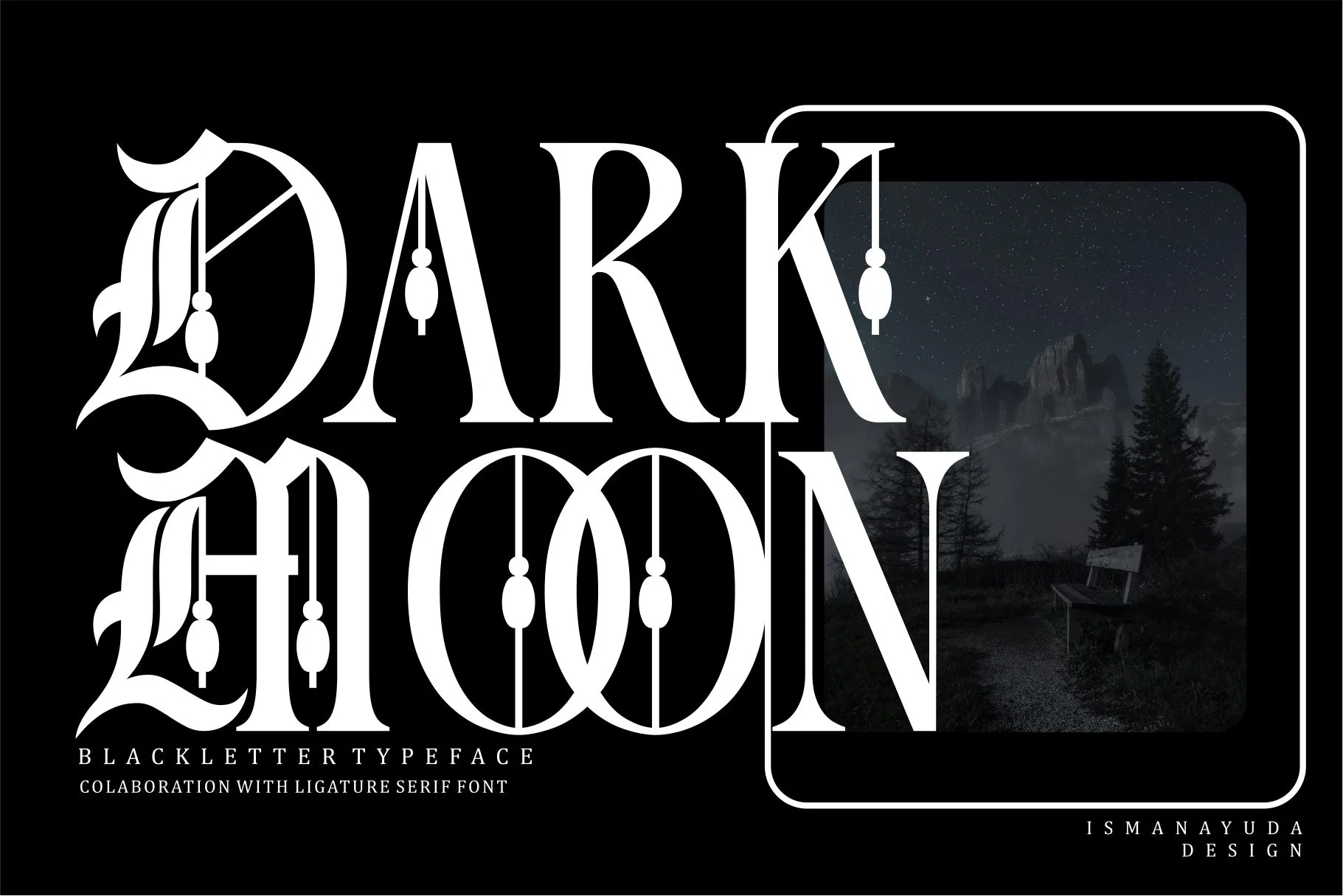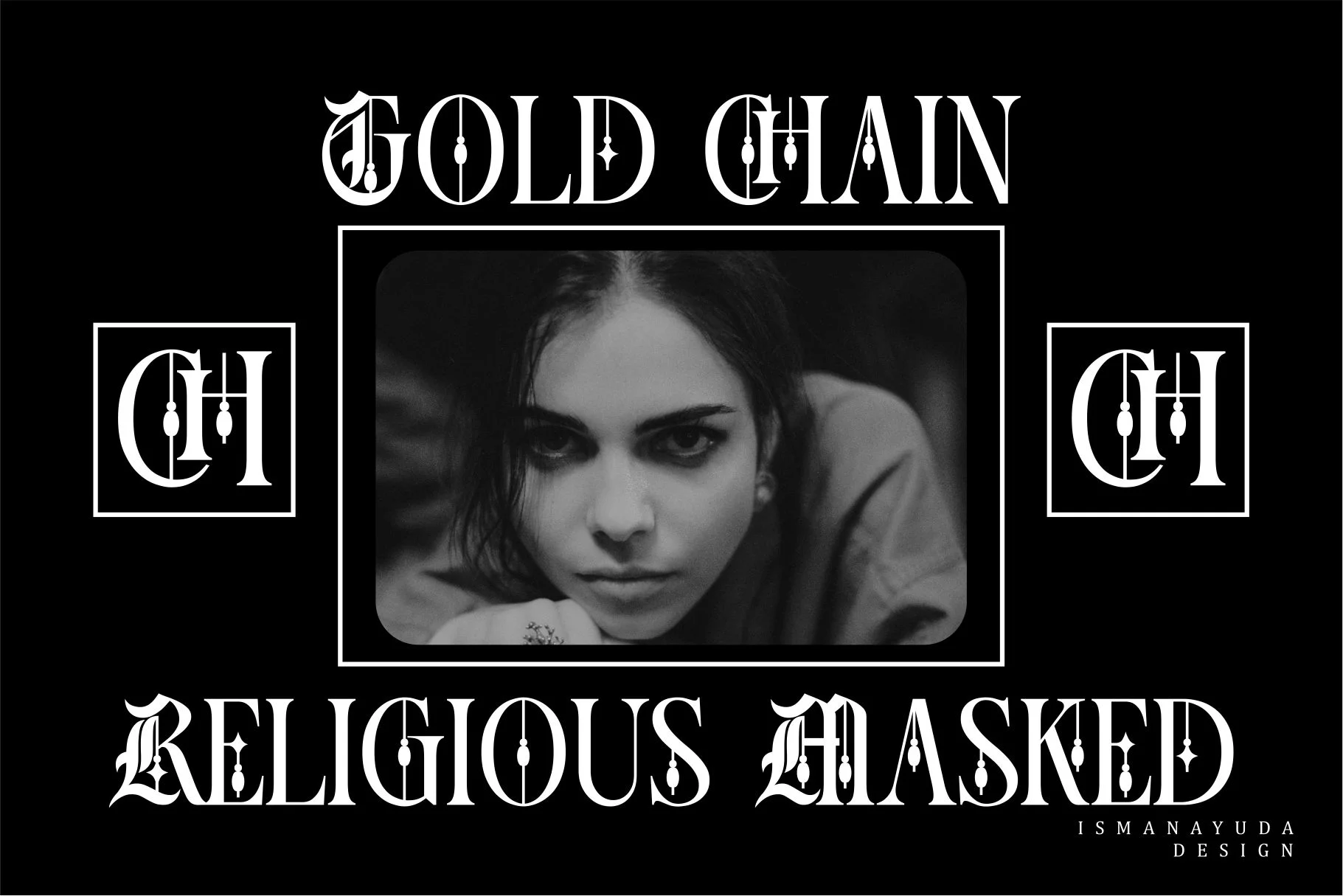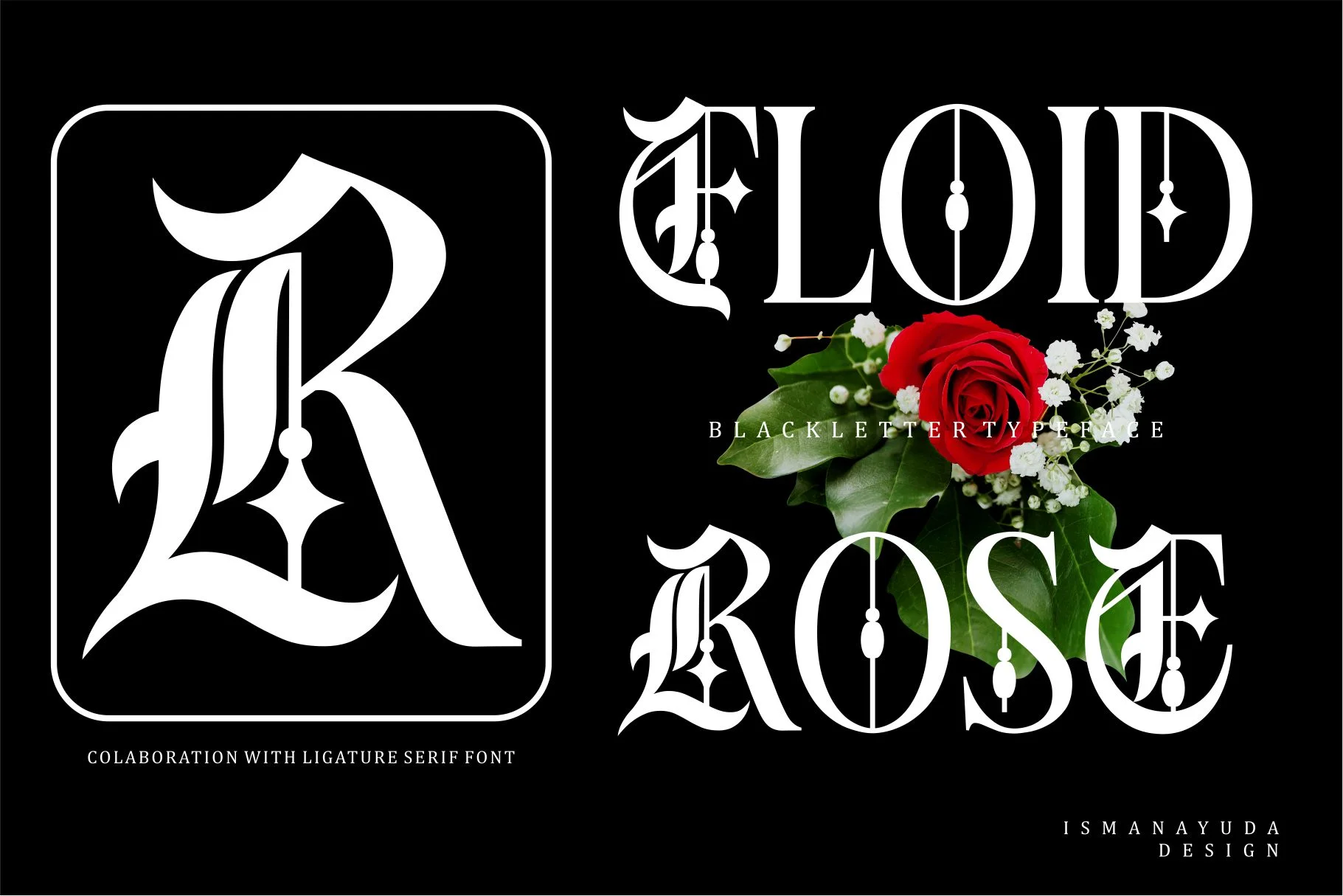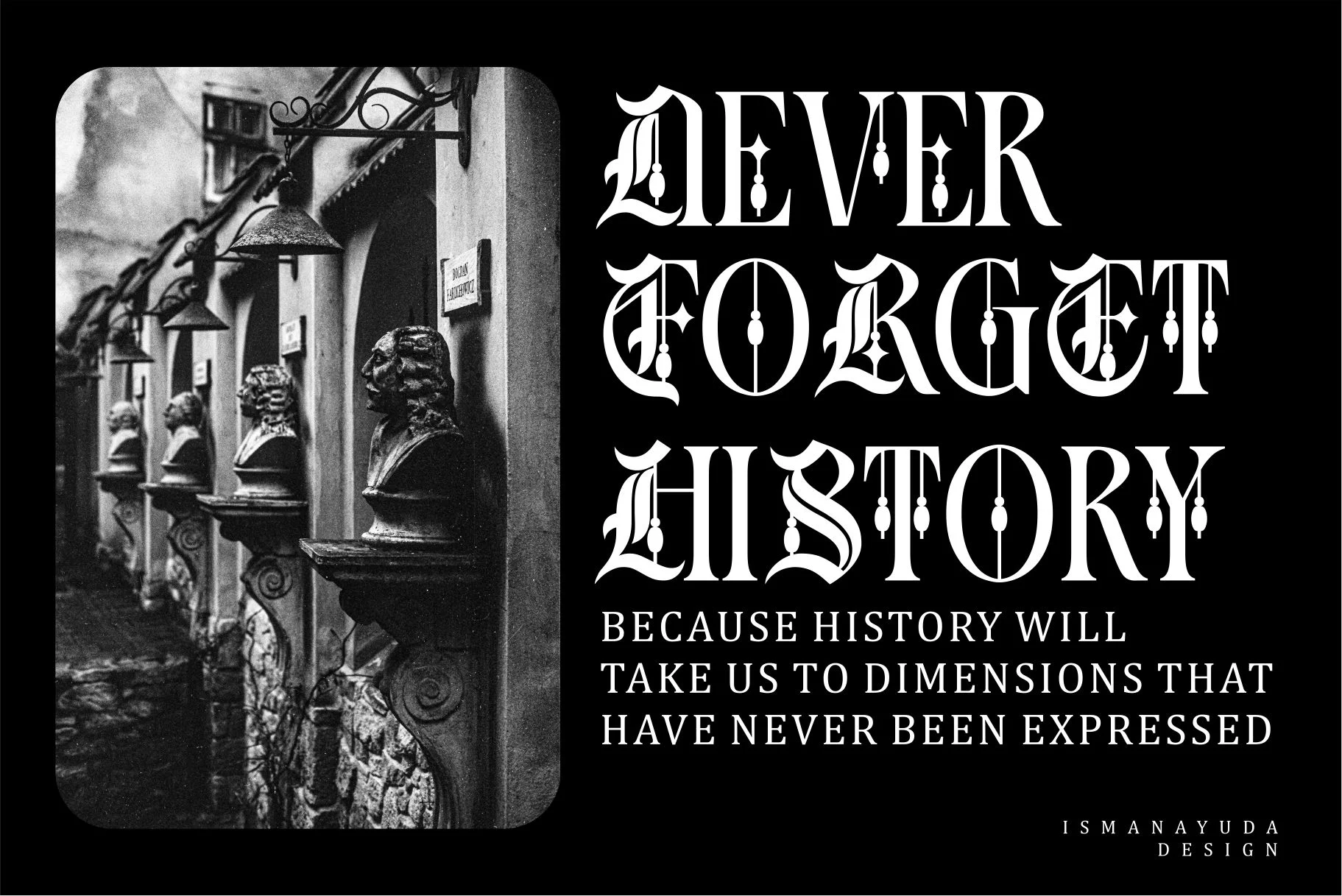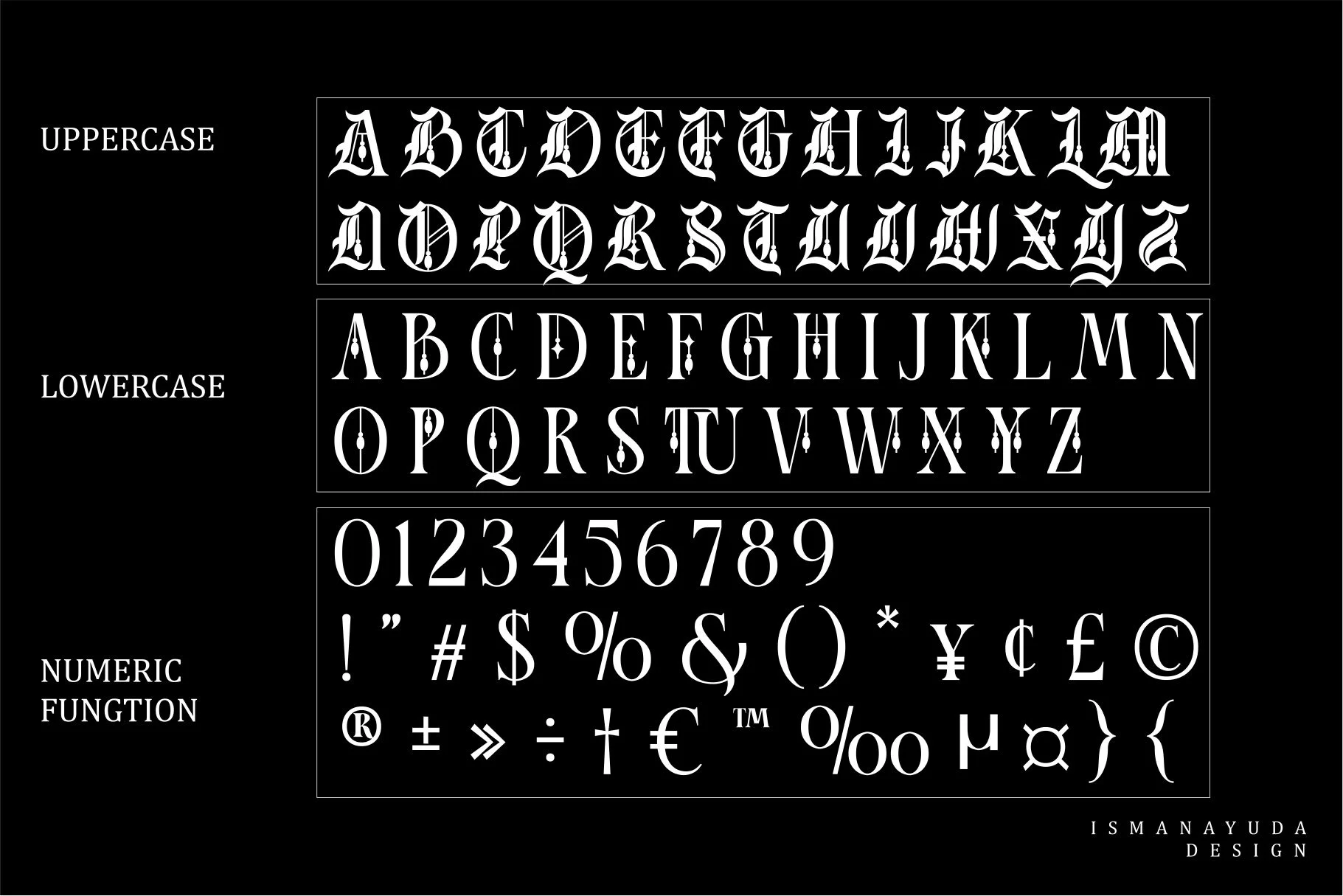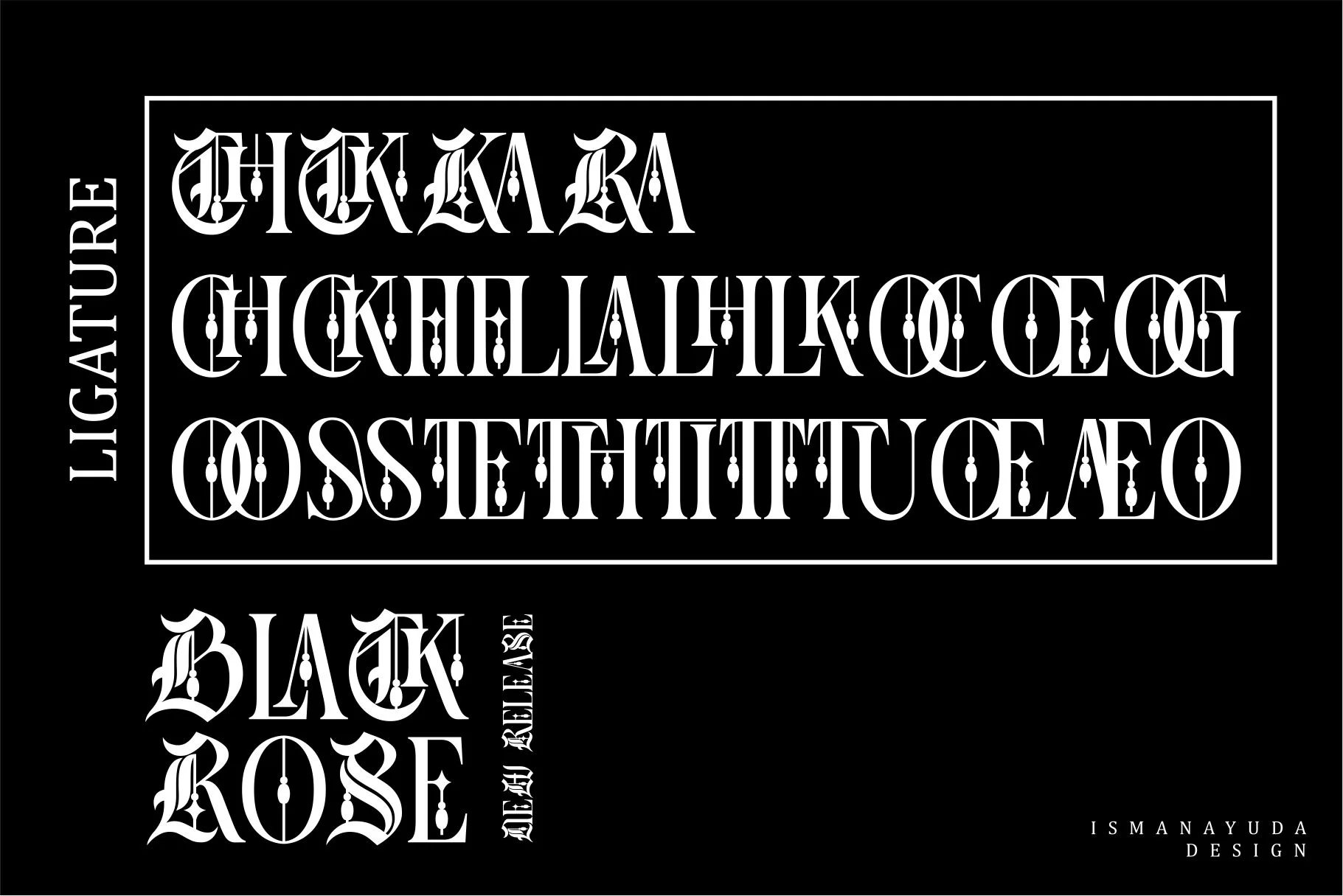
Black Rose
Black Rose is a bold and ornate Blackletter typeface that masterfully blends traditional Gothic structures with elegant serif and ligature elements.
- Intricate Decorative Details: The characters feature sharp, decorative serifs and unique flourishes—such as the circular and teardrop-shaped cutouts within the stems—that give it a sophisticated yet "haunted" feel.
- High Contrast: The design utilizes extreme contrast between heavy, authoritative vertical strokes and delicate, sharp connecting lines.
- Artistic Versatility: While it draws from historical European "Old English" styles, its modern refinement makes it perfect for contemporary branding, including logo design, music industry merchandise (particularly for metal or alternative genres), and high-end editorial layouts